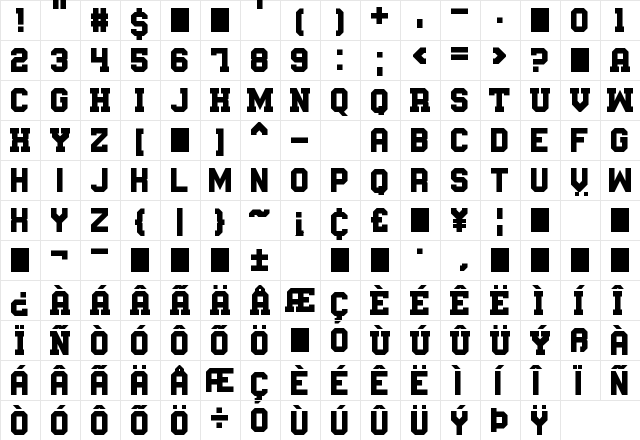
Messe Muenchen Regular Font Preview
Messe Muenchen Regular
Design Context for Messe Muenchen Typeface
Messe Muenchen takes a measured approach to typography — its balanced proportions and neutral character make it a reliable workhorse for both digital and print work.